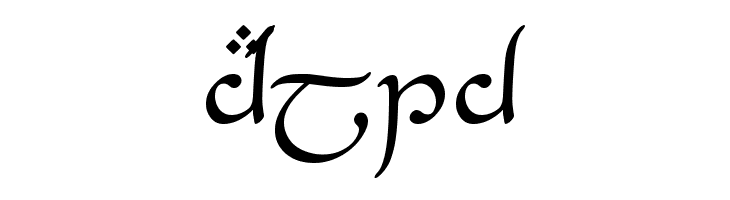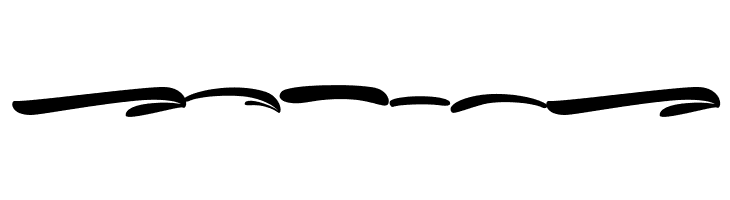
( Noah K. )
An elegant, flowing script with intricate, ornate letterforms inspired by fictional elvish languages.
( Noah K. )
An artistic and decorative script with a mystical, ancient appearance.
( Pathero Studio - www.patherostudio.com )
A bold, lively script font with a handwritten, dynamic style.
( Pathero Studio - www.patherostudio.com )
A bold, dynamic script font with flowing, interconnected strokes.
( Pathero Studio - www.patherostudio.com )
An elegant, flowing script font with swash elements and dynamic contrast.
( Pathero Studio - www.patherostudio.com )
An elegant, swash-filled decorative font with a calligraphic style.
( Typodermic Fonts - Ray Larabie - www.typodermicfonts.com/ )
A bold, modern font with clean lines and a strong presence.
( Typodermic Fonts - Ray Larabie - www.typodermicfonts.com/ )
A modern, sleek font with tall, narrow characters and a cohesive design.
( Typodermic Fonts - Ray Larabie - www.typodermicfonts.com/ )
A sleek, modern italic font with streamlined, slightly condensed characters.
( Typodermic Fonts - Ray Larabie - www.typodermicfonts.com/ )
A bold, italicized font with a dynamic and modern style.